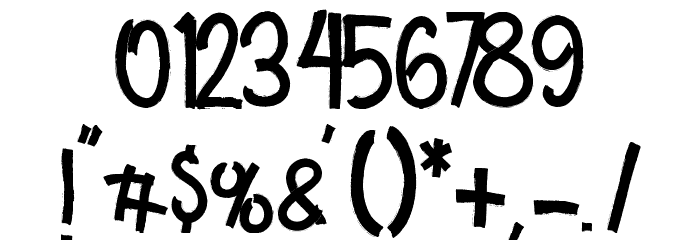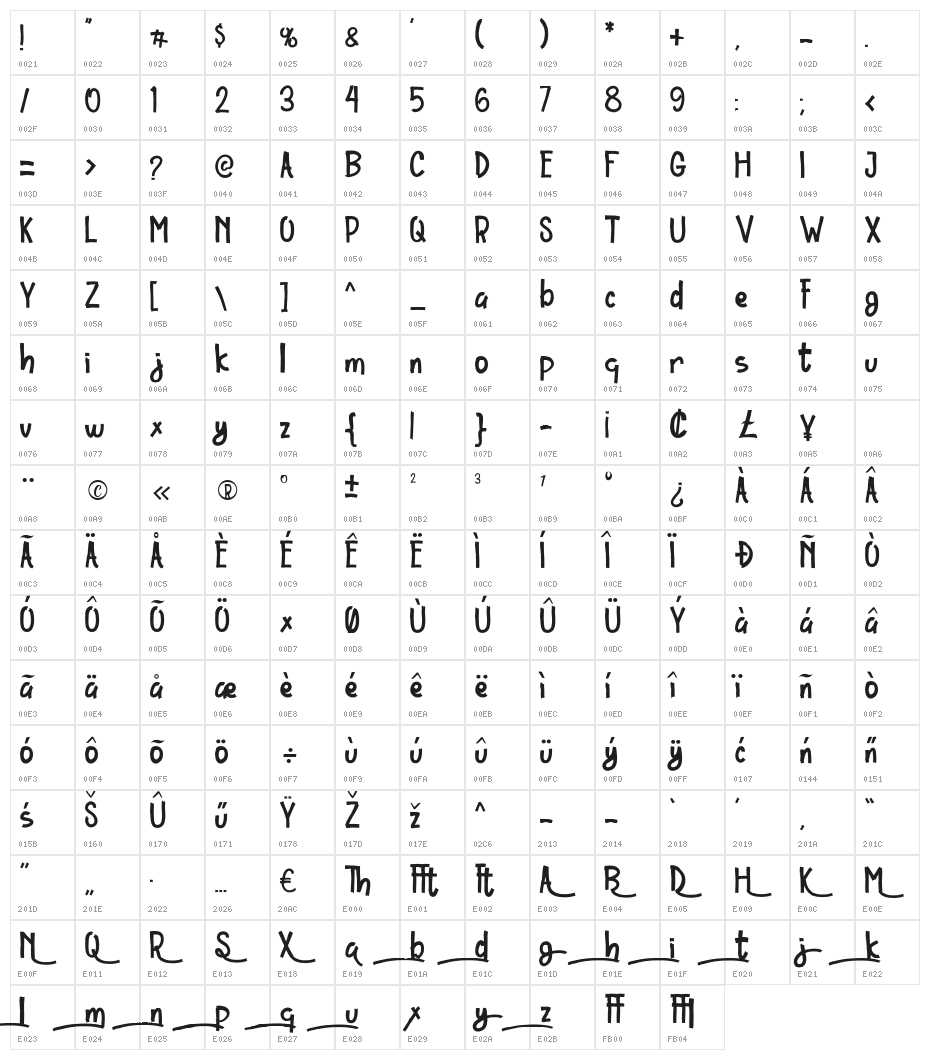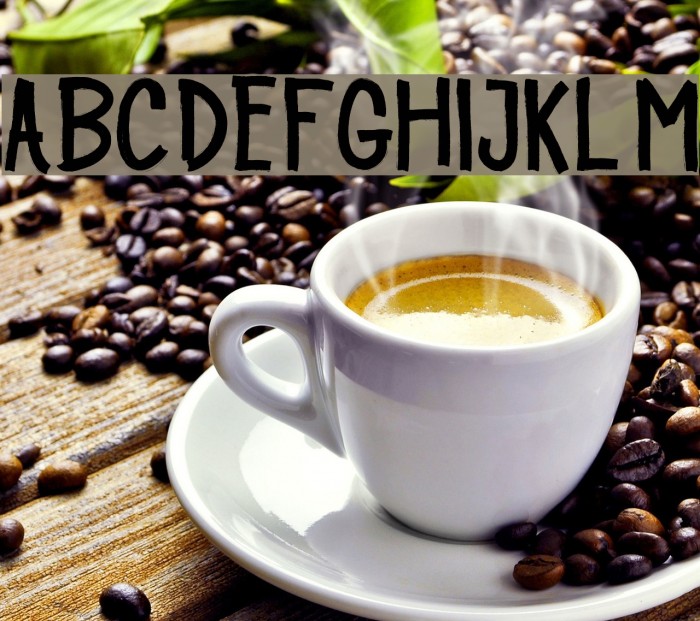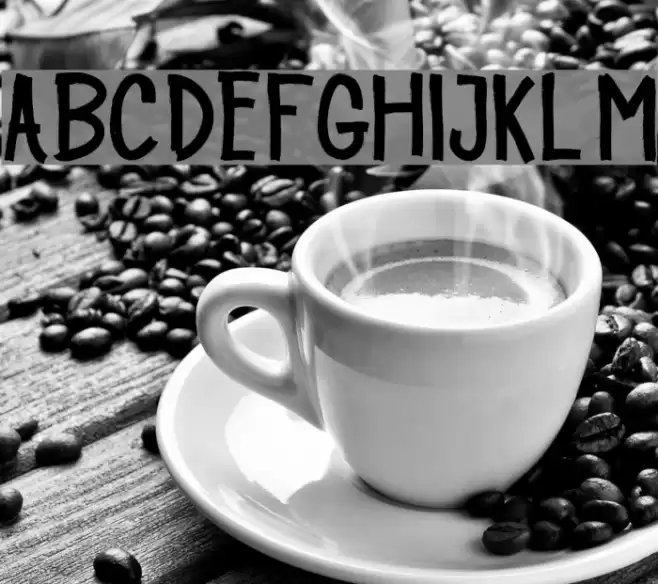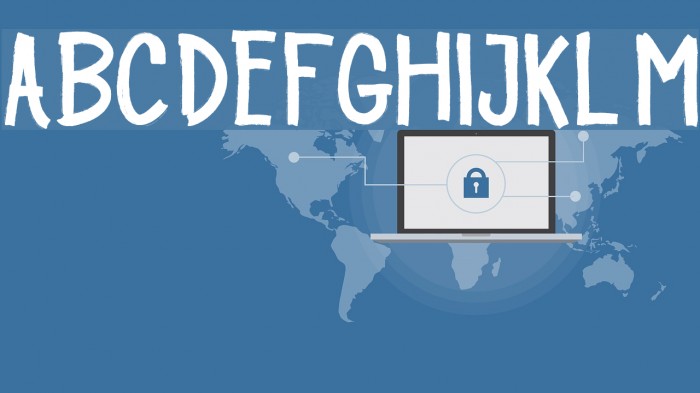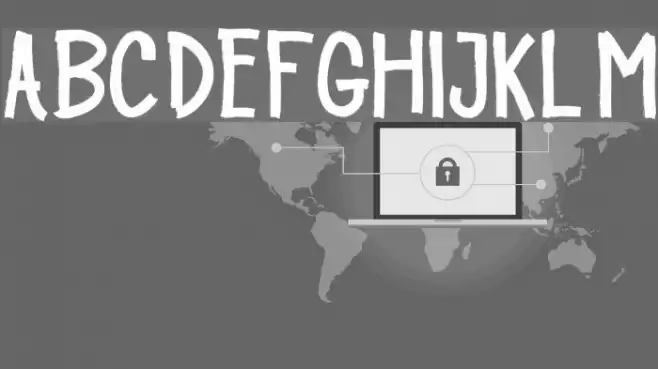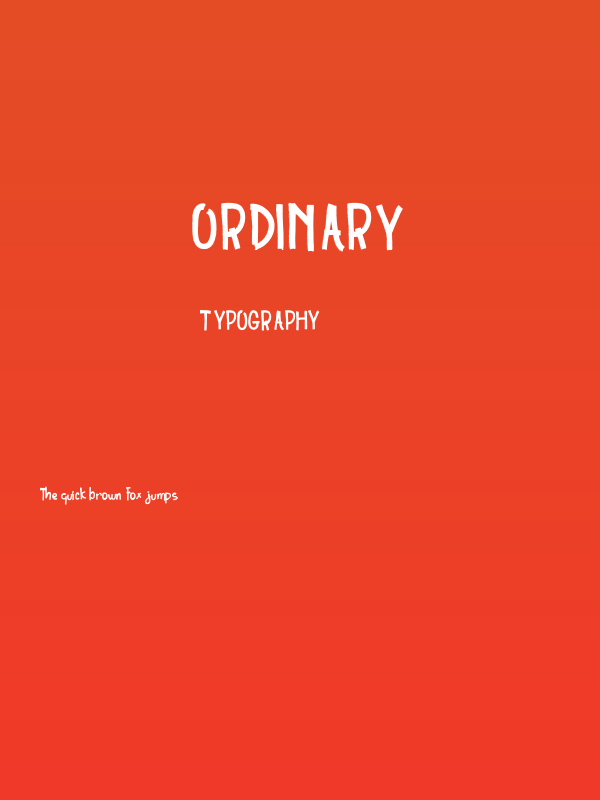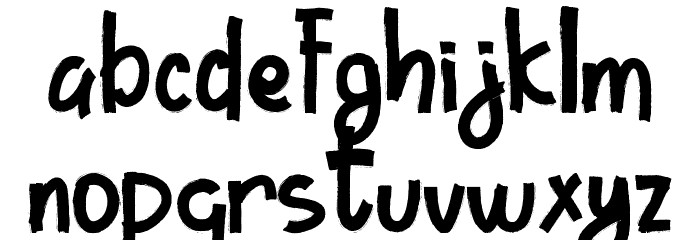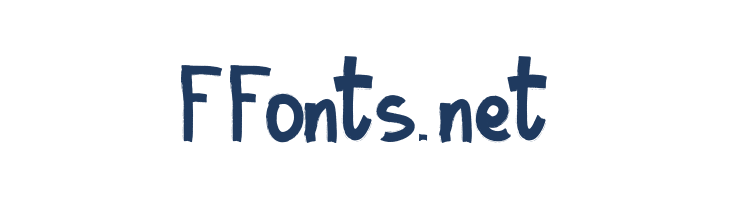
Ordinary Font
Ordinary Description
This font features a bold, hand-drawn style with a playful and casual appearance. The letters are slightly irregular, giving it a unique and organic feel. The uppercase and lowercase letters maintain a consistent thickness, while the numbers and special characters follow the same playful design. The strokes are thick and uneven, adding to the font's charm and making it stand out. This font is perfect for projects that require a personal touch or a fun, informal vibe.
| Proposed Projects | Ideal for greeting cards, children's books, posters, and creative branding projects. |